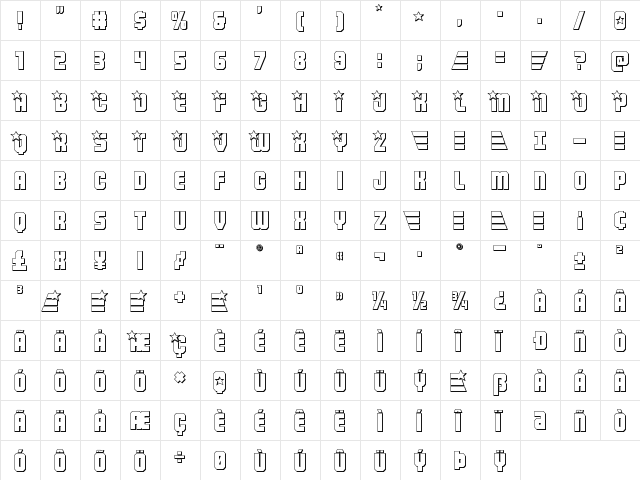
Army Rangers 3D Regular
Design Context for Army Rangers 3D Typeface
Army Rangers 3D draws on military and industrial lettering traditions, with forms that communicate strength and precision.
Designed for tactical branding, military-inspired apparel, action game UI, and utility-focused signage.
Font Pairing: Use alongside a condensed or geometric sans for supporting copy — keep the pairing bold, functional, and free of ornament.
Pro Tip: Use Army Rangers 3D at medium-to-large sizes where its utilitarian structure can be appreciated — the character detail gets lost at small sizes.